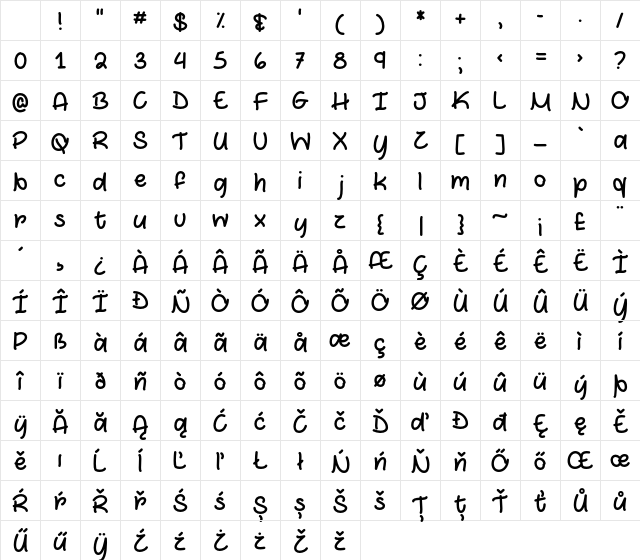
Complete Marshmallows and Chocolate Regular glyph index. Displaying only characters natively supported by Marshmallows and Chocolate Regular font.
Marshmallows and Chocolate is a composed and adaptable typeface that performs quietly and consistently across a wide range of design contexts.